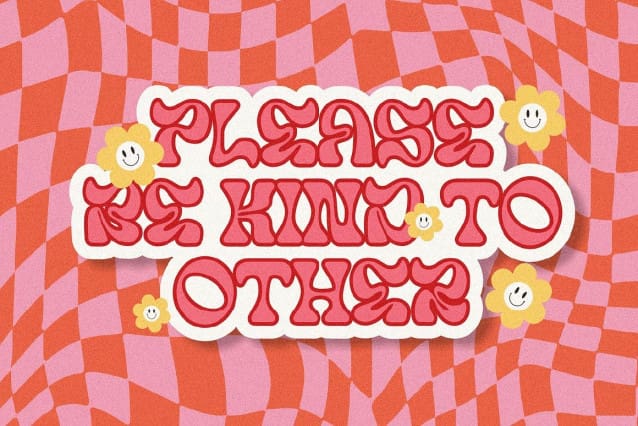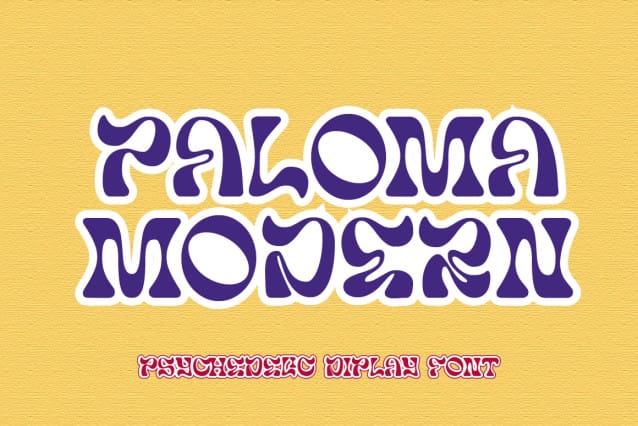
Paloma Modern Font
Paloma Modern Font – Modern is Display font. This font would be perfect for photography, watermarks, social media posts, advertisements, logos & branding, invitations, product design, labels, stationery, product packaging, special events, and other projects.